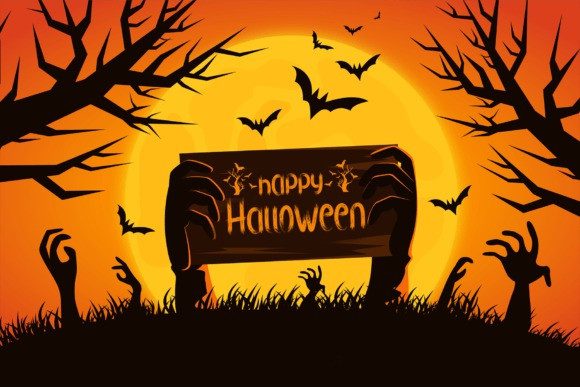
Hauntedtree Font
Hauntedtree Font is a spine-chilling display typeface that captures the eerie essence of haunted forests. With its twisted and gnarled letterforms, this font invokes a sense of darkness and mystery. Perfect for Halloween-themed designs, horror movie titles, and gothic-inspired artwork, Hauntedtree Font brings an unsettling and haunting atmosphere, sending shivers down the reader’s spine. Let your designs be consumed by the haunting allure of Hauntedtree Font.